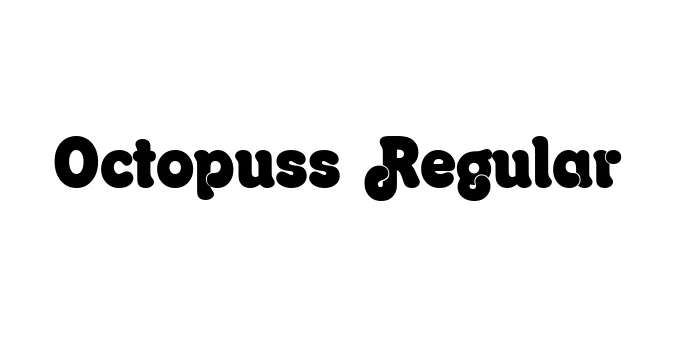
Octopuss Regular
Designed by Colin Brignall
| Font Name | Octopuss |
| Category | Display / Decorative |
| Designer | Colin Brignall |
| Similar Fonts | Pump, Frankfurter, Blippo, Bauhaus |
Octopuss Regular was designed by the renowned British typographer Colin Brignall in 1970 for Letraset. This typeface is a quintessential example of the late 1960s and early 1970s display aesthetic, featuring extremely heavy, rounded forms that seem to flow into one another like liquid. The design reflects the heavy influence of the psychedelic and pop art movements of the era, prioritizing massive visual impact and unique personality over traditional legibility standards.
The font is characterized by its soft, bubble-like appearance and minuscule counters, which give it a dense and powerful presence on the page. Because of its extreme weight and distinctive curves, it is primarily intended for large-scale applications where the shapes can be fully appreciated. It remains a popular choice for designers today who are looking to evoke a sense of vintage funk, retro-cool branding, or creative editorial layouts that require a touch of 1970s nostalgia.
Octopuss Regular Best Uses
Perfect for high-impact visual displays and retro-themed event posters.
Excellent for brands that require a friendly, bubbly, or vintage personality.
Ideal for album artwork and promotional materials for pop, indie, or psychedelic genres.
Works best for short, punchy titles and headlines where style is the primary goal.